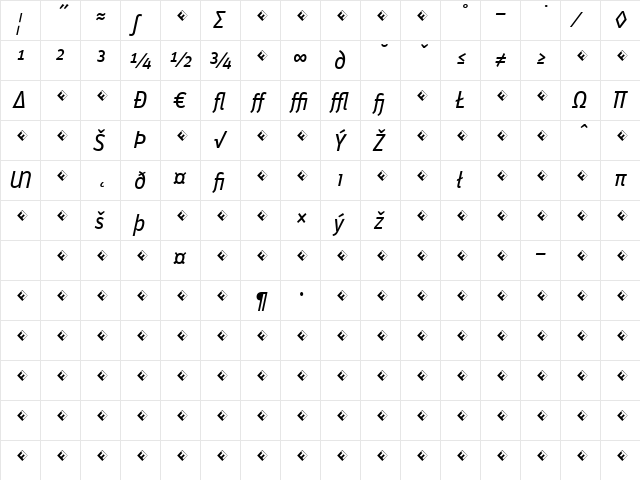
Unit-RegularItalicTFExpert Regular
| Designer | Erik Spiekermann, Christian Schwartz |
Design Context for Unit-RegularItalicTFExpert Typeface
Unit-RegularItalicTFExpert is a composed and adaptable typeface that performs quietly and consistently across a wide range of design contexts. The dynamic lean of this cut emphasises speed and emphasis in any layout.
Pro Tip: Use Unit-RegularItalicTFExpert for emphasis, pull quotes, and subheadings where its slanted energy can add rhythm to the layout.